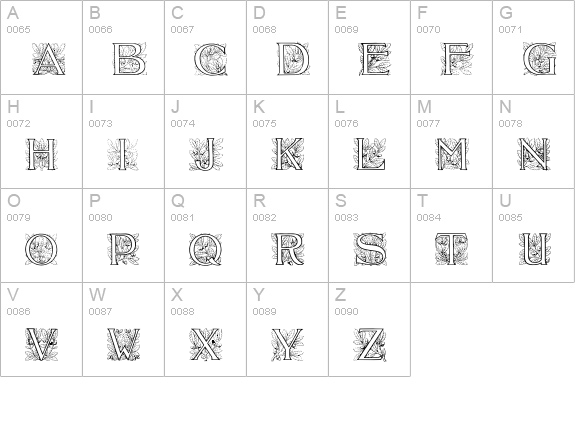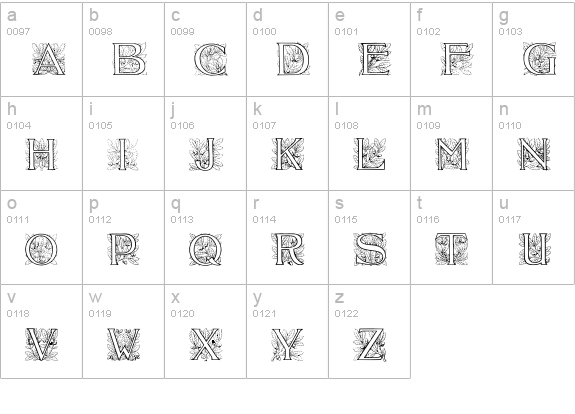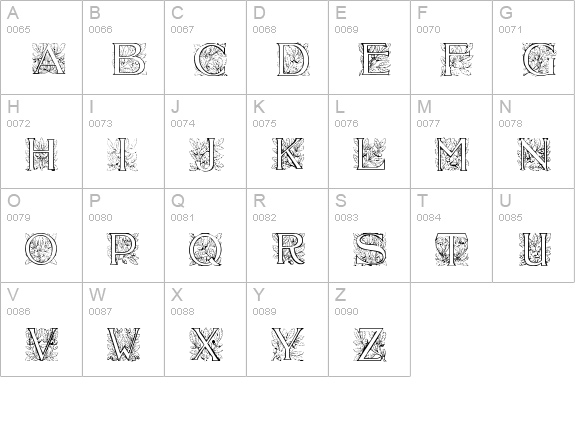
Acorn Initials font is a charming and whimsical typeface that adds a touch of elegance to any design project. With its intricate details and delicate curves, this font is perfect for adding a touch of sophistication to invitations, logos, branding, and more. The ornate acorn motifs in each letter give a unique and eye-catching look to your text. And the best part? Acorn Initials font is available for free download at FontsMarket.com. That's right, you can easily access this stunning font and incorporate it into your projects without any cost. Don't miss out on the opportunity to elevate your designs with the beauty of Acorn Initials font - download it today and let your creativity soar!